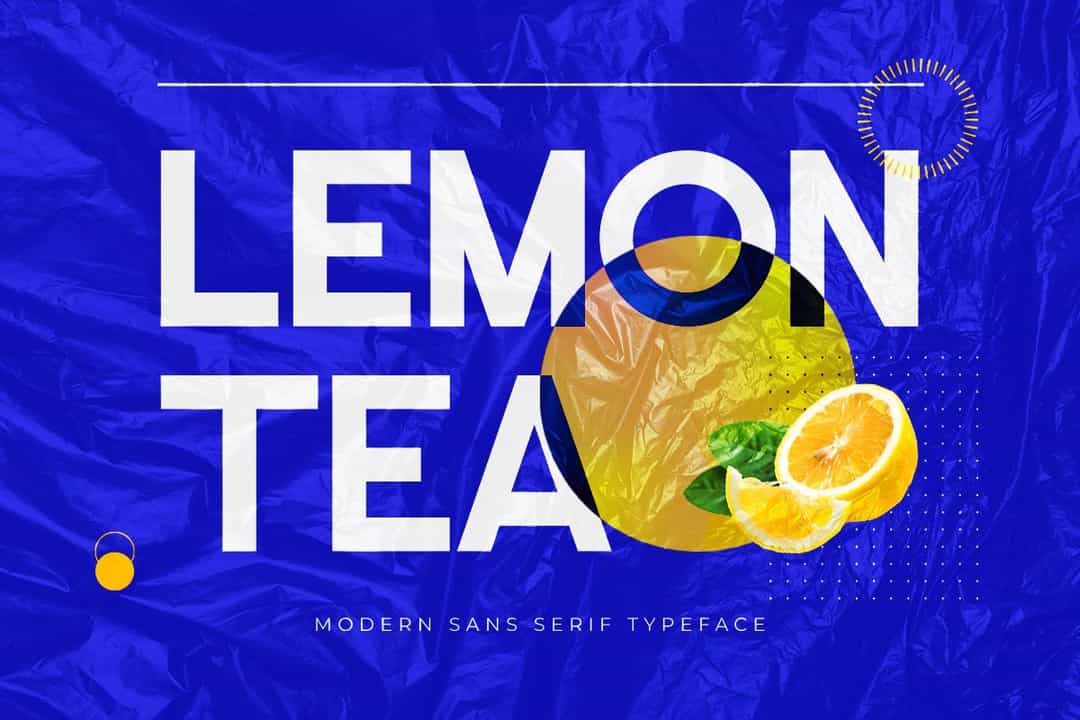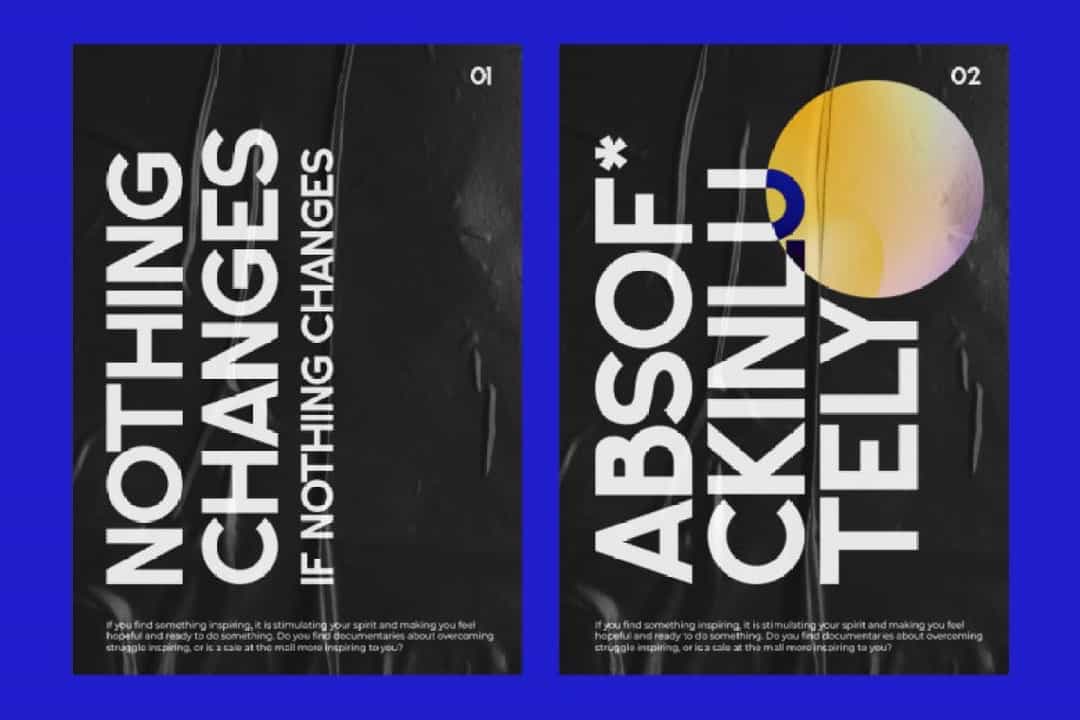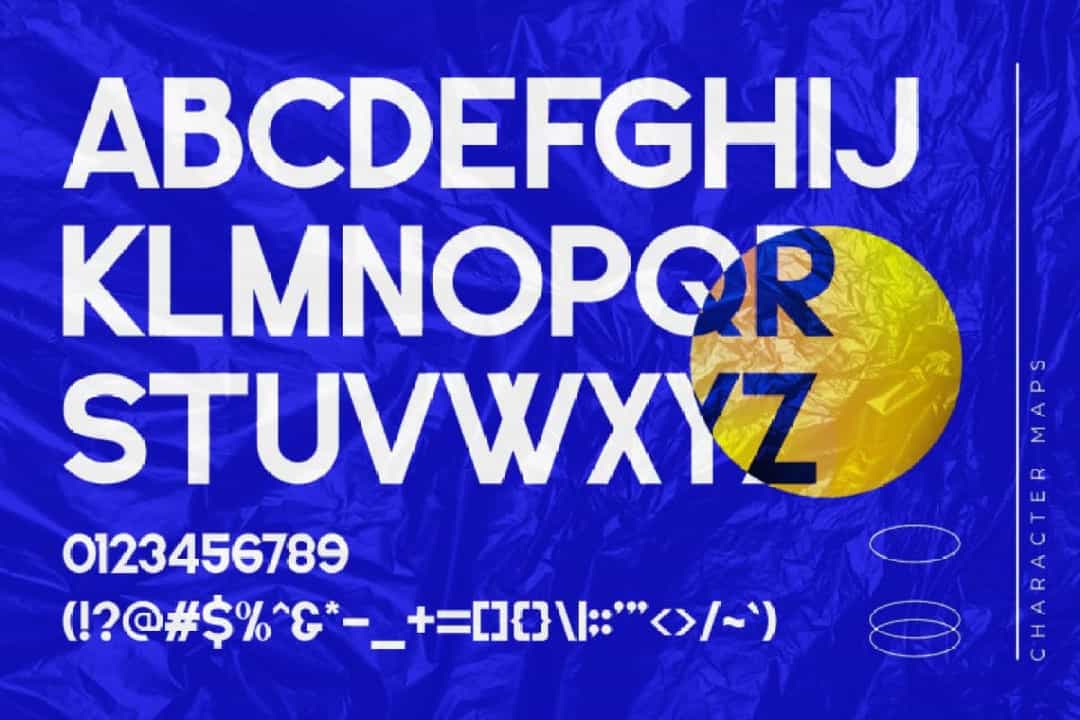
Lemontea is an elegant yet straight forward Sans Serif style that adds zest to designs such as posters, branding online, quotes magazines blogs newspapers game titles film titles advertising social media. Furthermore, this font works great for logos t-shirt designs fonts and much more!